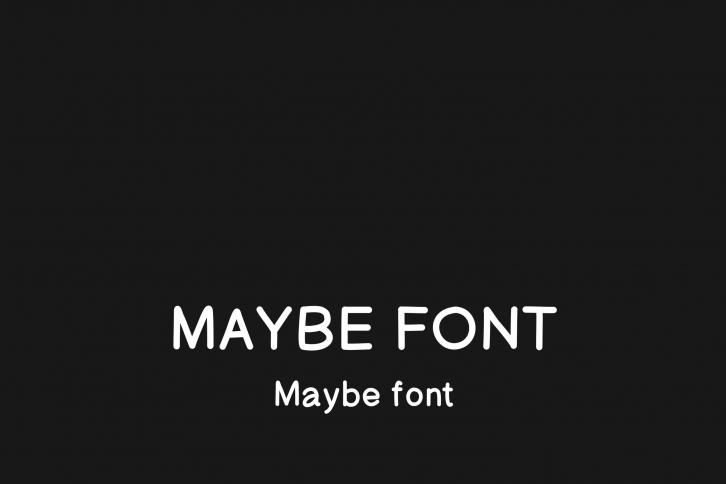
Maybe is a cute, simple, thin, and bold script font. Fall in love with its charming style, and use it to create beautiful wedding invitation cards, amazing static art like t-shirts, mugs, stickers, social media posts, and more!